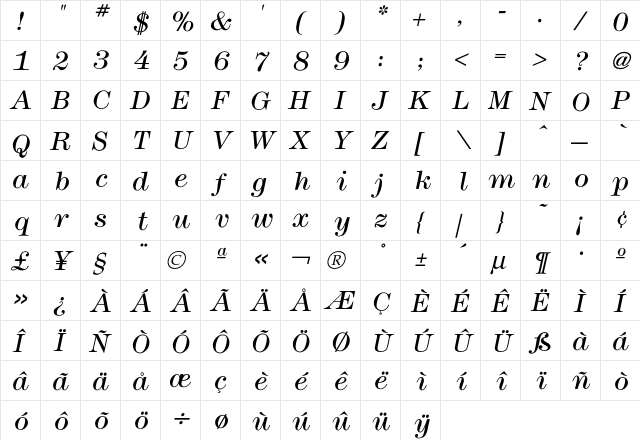
Modern LightItalic
Design Context for Modern Typeface
Modern is a composed and adaptable typeface that performs quietly and consistently across a wide range of design contexts. The slanted form adds forward momentum and visual energy. The delicate stroke weight brings airiness and refinement to layouts.
Pro Tip: Use Modern for emphasis, pull quotes, and subheadings where its slanted energy can add rhythm to the layout.